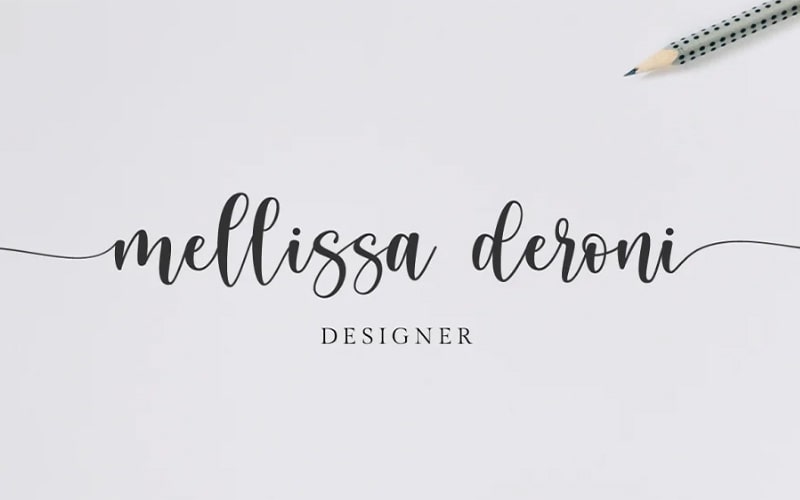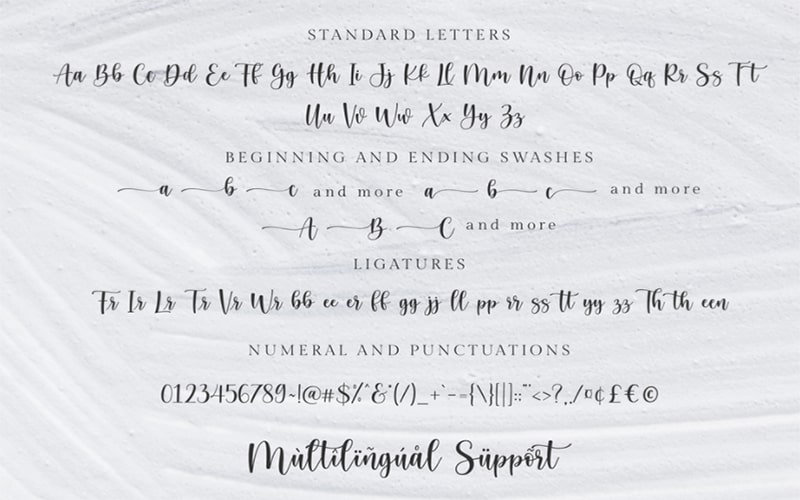
Cream Candy is a beautifully designed modern Script, and Calligraphic typeface with beginning and ending modern swashes.
This high-contrast font was designed by EF studio for the first time and it was published by Mellissa Deroni on November 11, 2019. After a few times, it was updated on January 07, 2020.
This beautiful and versatile font contains only 1 style such as the “Candy Cream Regular” font style. This stunning font contains 289 defined characters.
This single-weighted font contains 22 ligatures that add more beautiful and aesthetic fonts for designing your extraordinary project.
Cream Candy Font
| Style: | Calligraphic, Script, Typeface |
It supports multiple languages such as Afrikaans, Albanian, Danish, Dutch, English, German, Icelandic, Italian, Norwegian, Portuguese, Spanish, Swedish, and Zulu.
This font is perfectly suitable for any kind of social media post, painting, wedding design, stationery, logos, invitation, advertising, special events, or anything.
This amazing free version font is available in uppercase, lowercase letters, numerals, and some special letters. Let us have an amazing look at its texture.